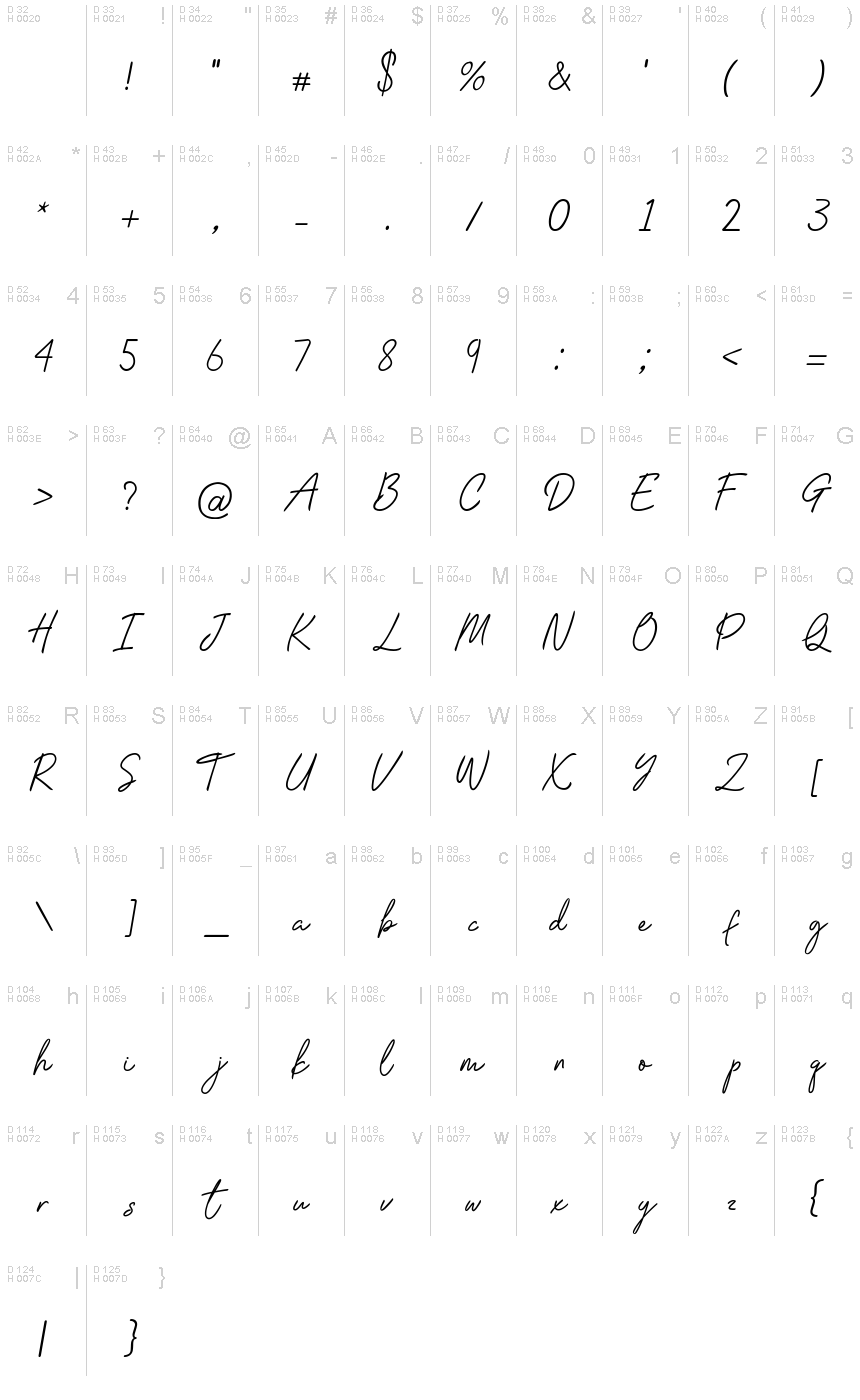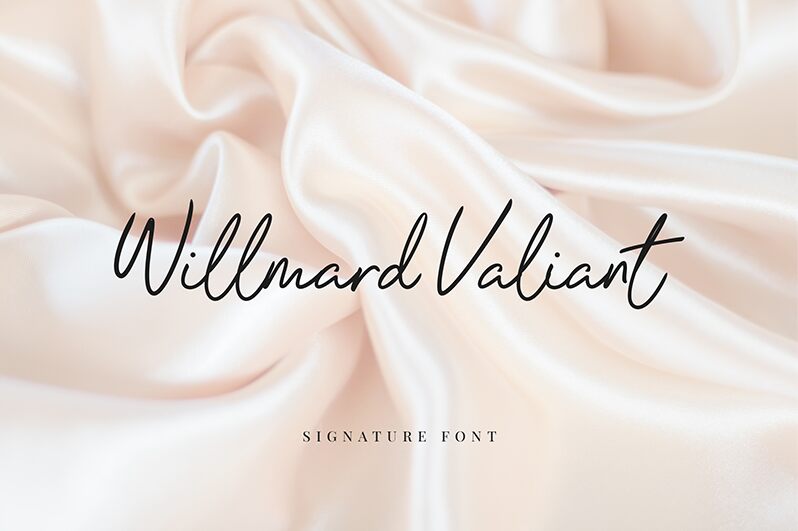
Willmard Valiant Script
Willmard Valiant Script font by UI Creative is a flowing signature-style modern typeface with elegant, graceful curves. This light handwritten font features natural elements that will make you designers fall in love with it instantly. The design that resembles a real person’s handwriting, comes made with wavy body lines along its letters to achieve this amazing effect naturally.
Use Willmard Valiant Script in personal card signatures, product packaging, magazine layouts, logo designs, headlines, banners and posters as well as book or film titles and more.